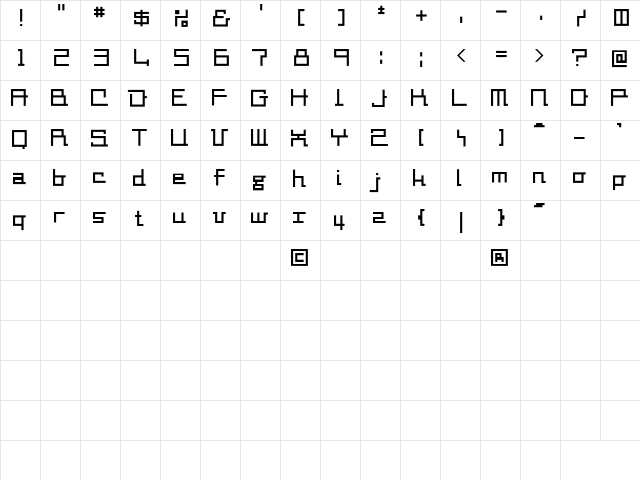
square-millimeter Regular
Design Context for square-millimeter Typeface
square-millimeter takes a measured approach to typography — its balanced proportions and neutral character make it a reliable workhorse for both digital and print work.